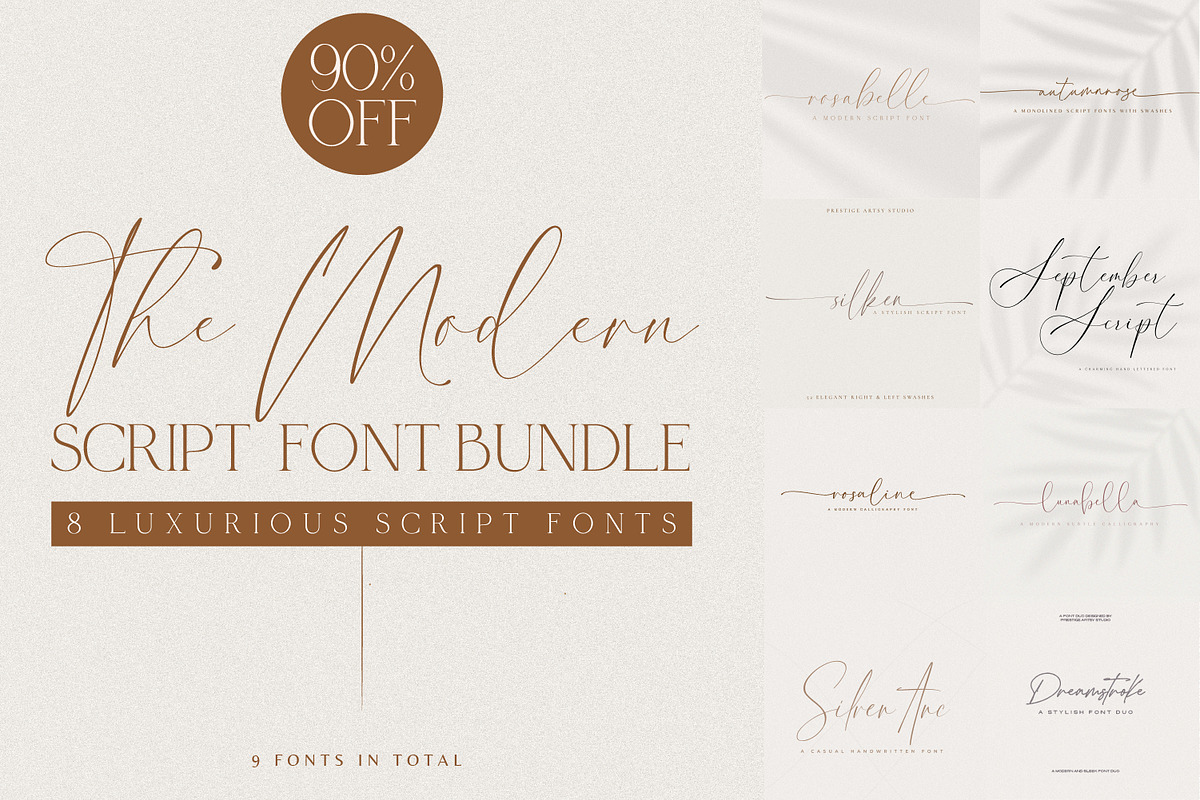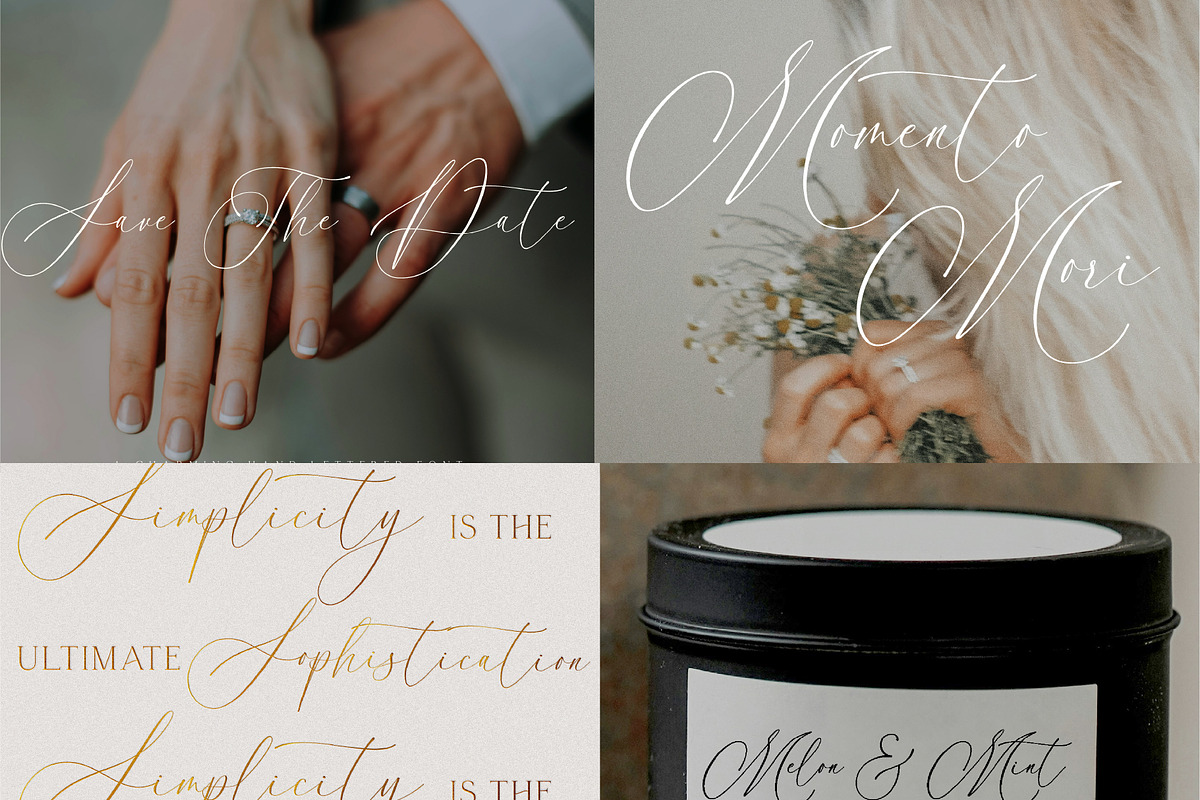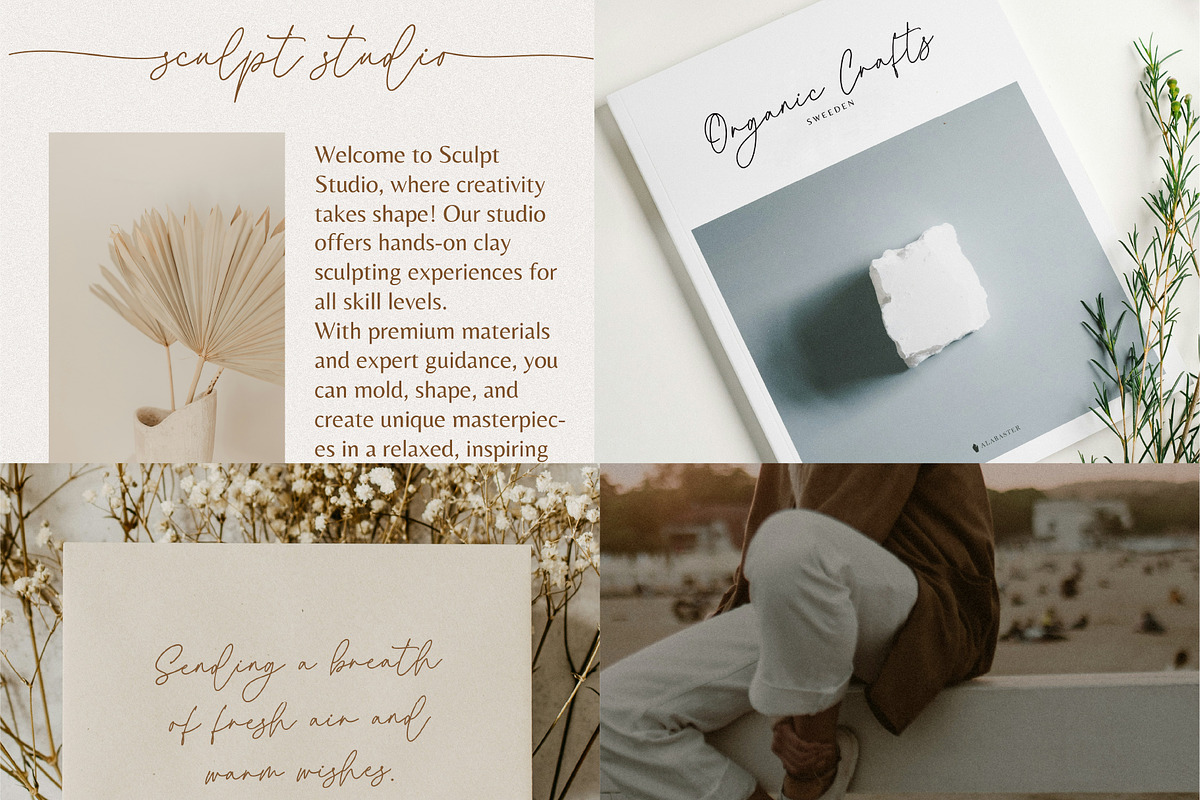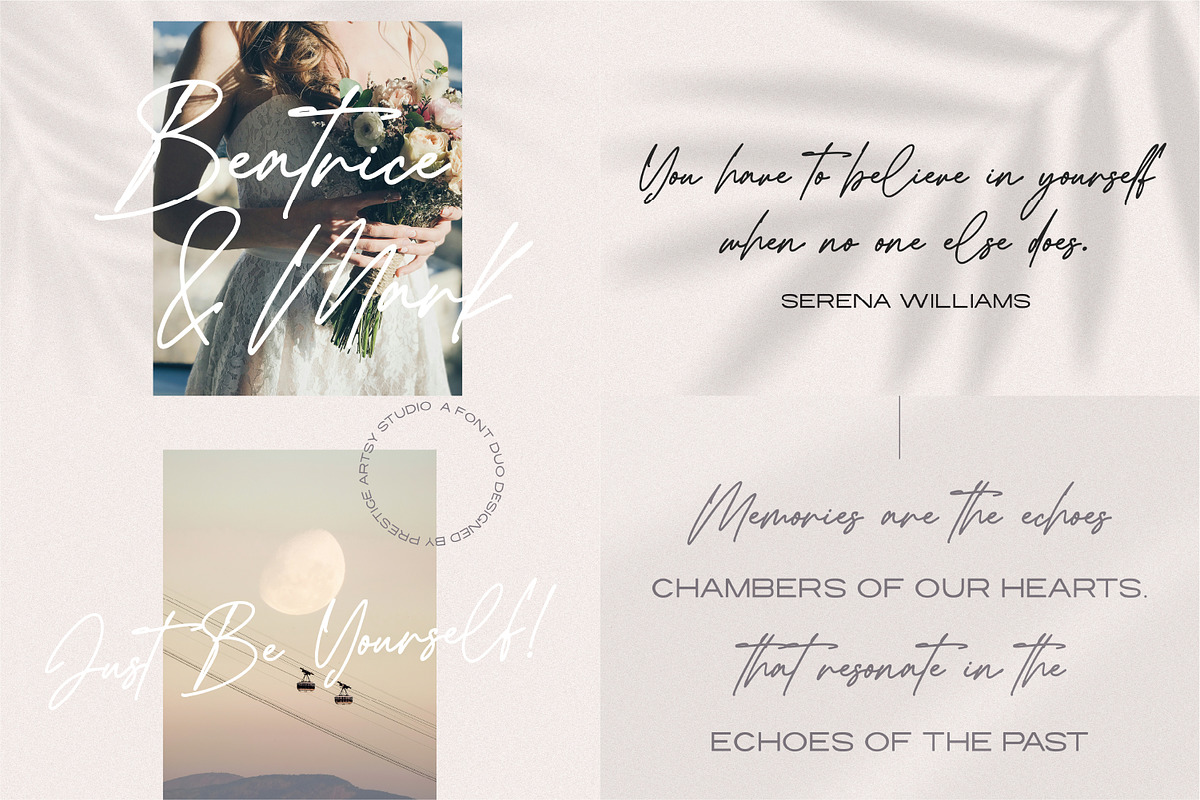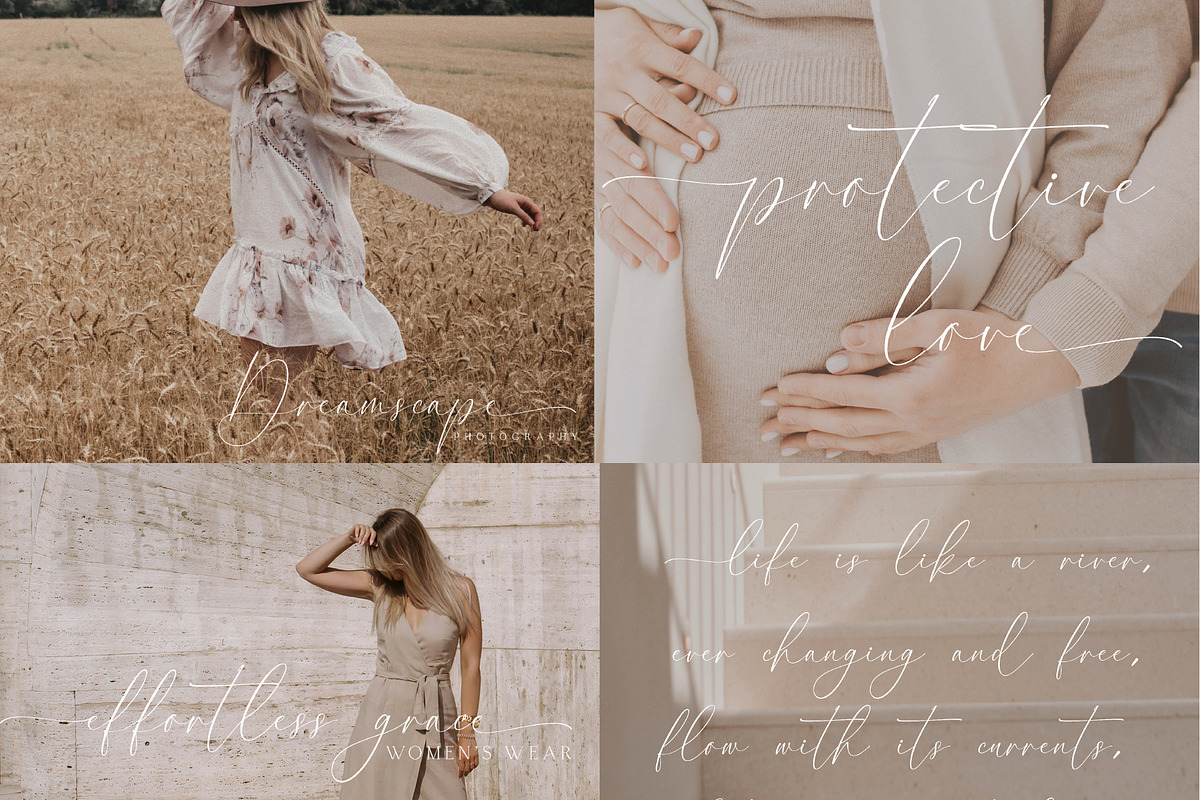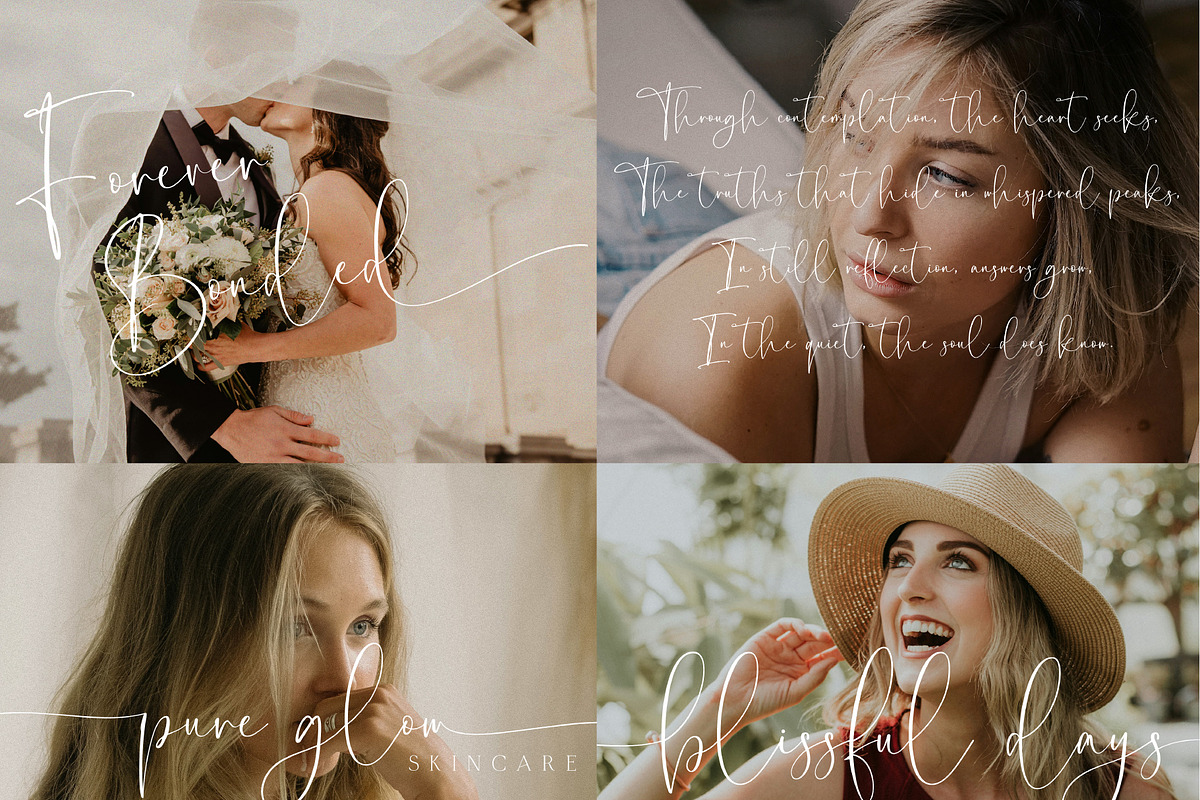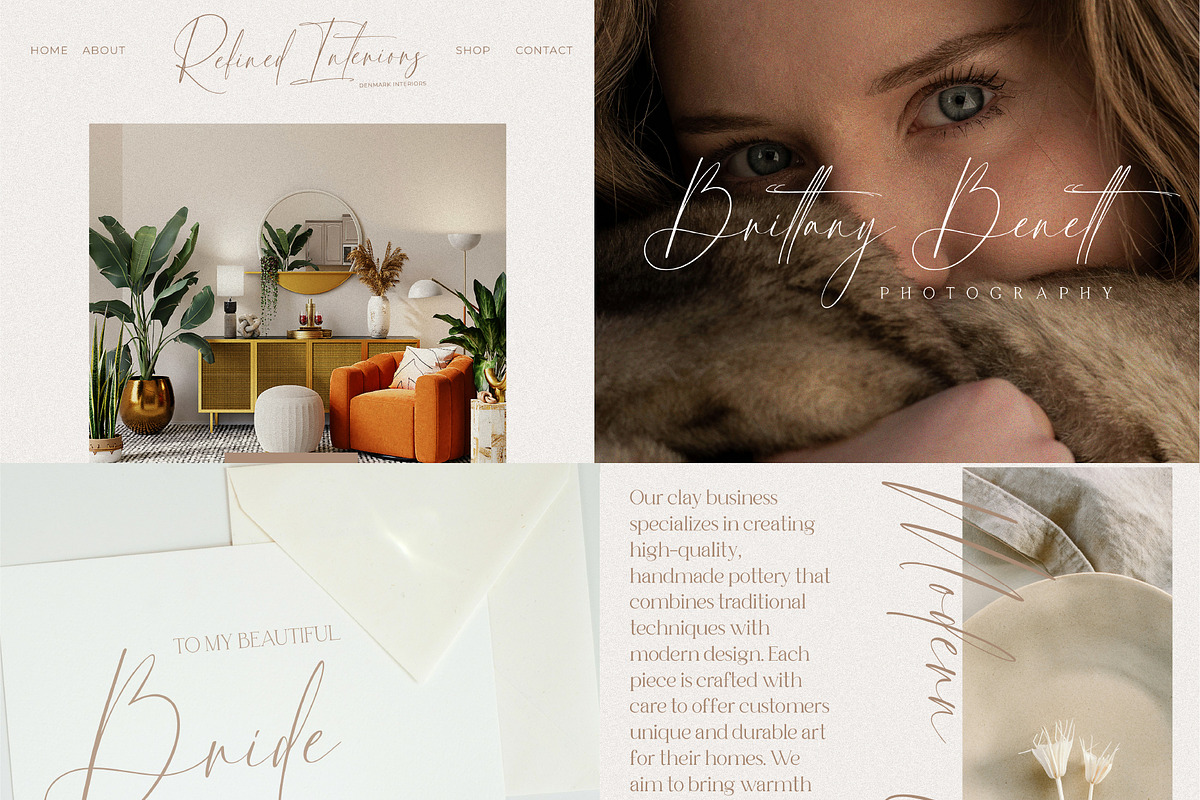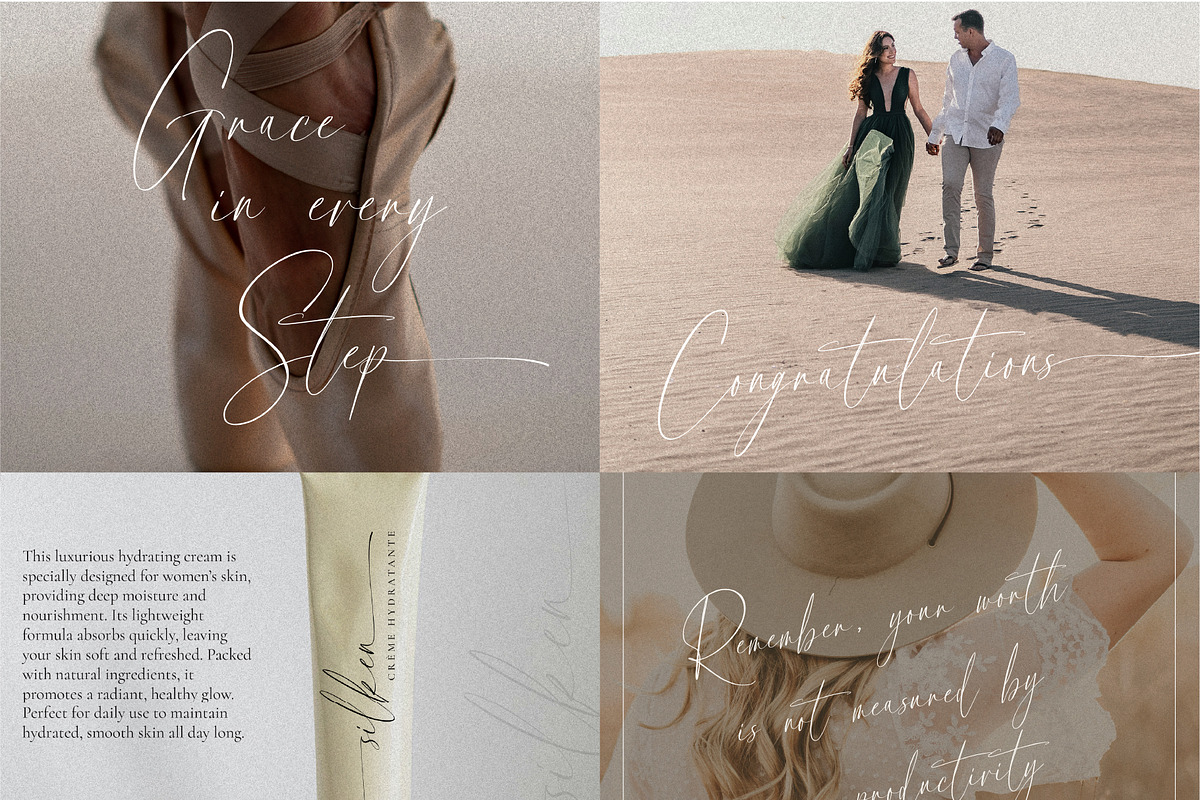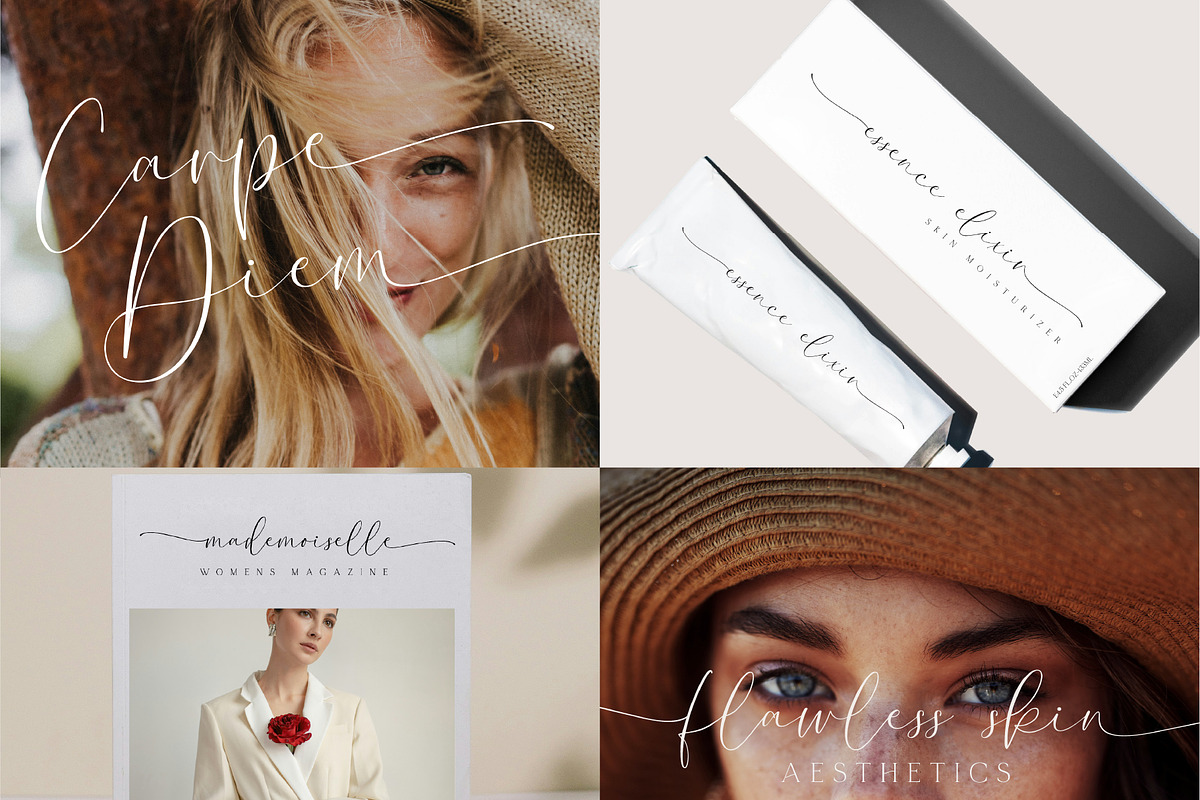
The Modern Script Font Bundle
Elevate your designs with this collection of 8 stunning fonts. Perfect for logos, invitations, social media, and so much more, these fonts are versatile, easy to use, and ideal for both personal and business projects.
Fonts Included
Rosaline
Rosabelle
Autumnrose
Silken
September Script
Lunabella
Silver Arc
Dreamstroke Font Duo